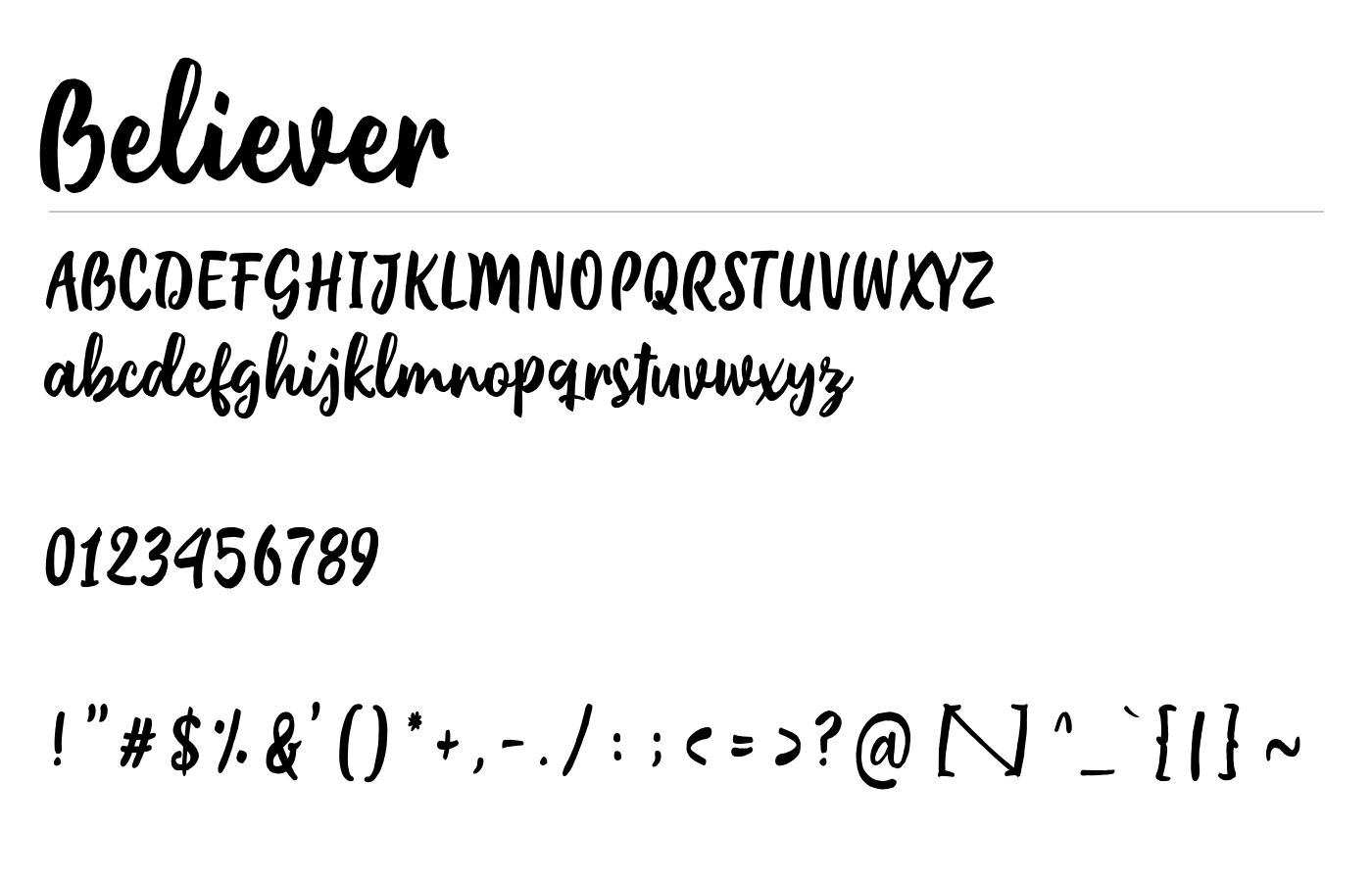
Believer is a lively handwritten script font with a bold, slightly condensed style that brings a warm and personal touch to any design. Its smooth, round strokes combined with playful letterforms make it feel friendly and approachable, perfect for casual branding, invitations, and creative projects that want to convey sincerity and energy. This font works well for headlines and logos where a distinctive, human feel is desired.
Believer Font
About Believer Font